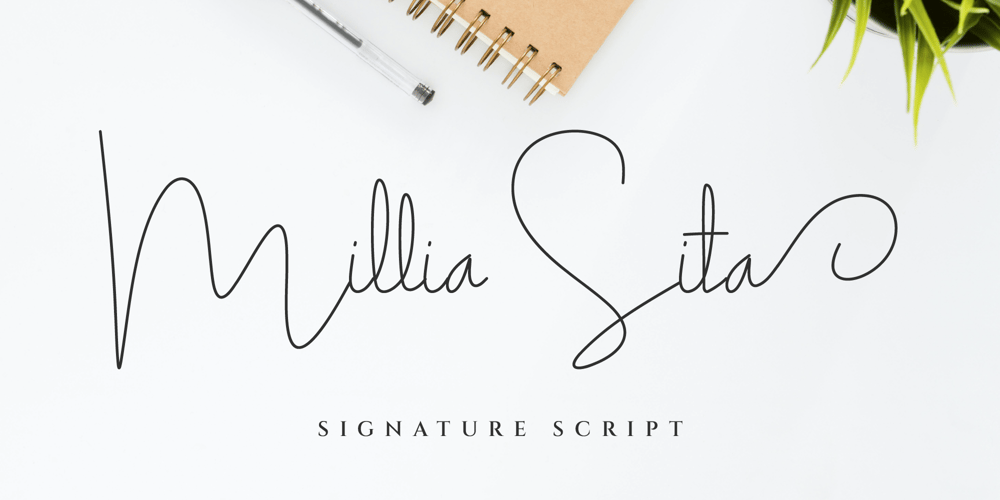
Millia Sita
Millia Sita font
Millia Sita Font Family was designed by Iwan Alwan and published by Artiveko. Millia Sita contains 2 styles and family package options. Millia Sita, an exquisite signature script font designed to elevate your projects with elegance and flair.With its captivating curves and graceful strokes, Millia Sita exudes sophistication and charm, making it the perfect choice for fashion, photography, and cosmetics businesses.Crafted with meticulous attention to detail, this font boasts multilingual support, ensuring seamless communication across various languages and cultures. Its ligatures and alternates add versatility and creativity to your designs, allowing you to customize and personalize with ease.Whether you’re creating logos, branding materials, invitations, or social media posts, Millia Sita lends a touch of refinement and professionalism to every project. Elevate your designs and make a lasting impression with the timeless beauty of Millia Sita signature script font.